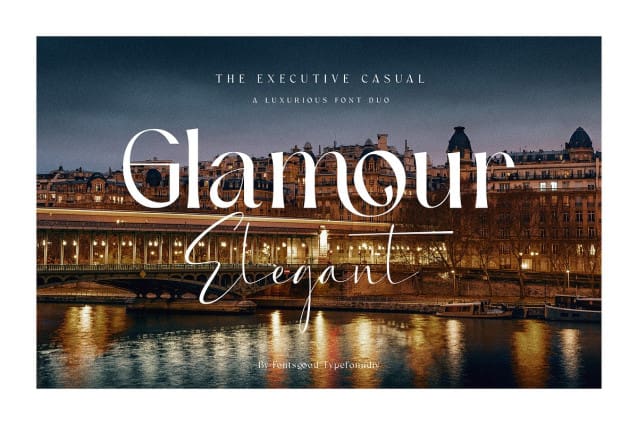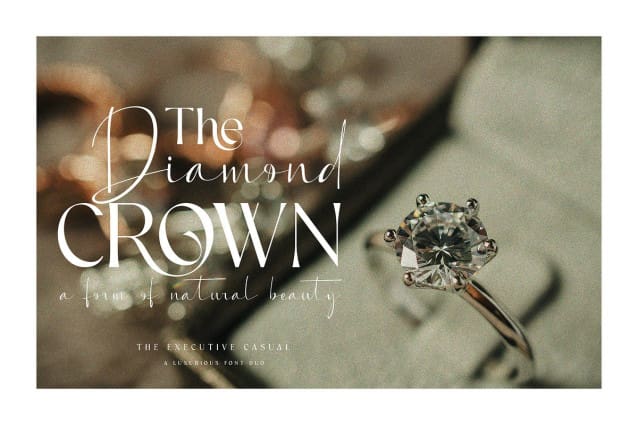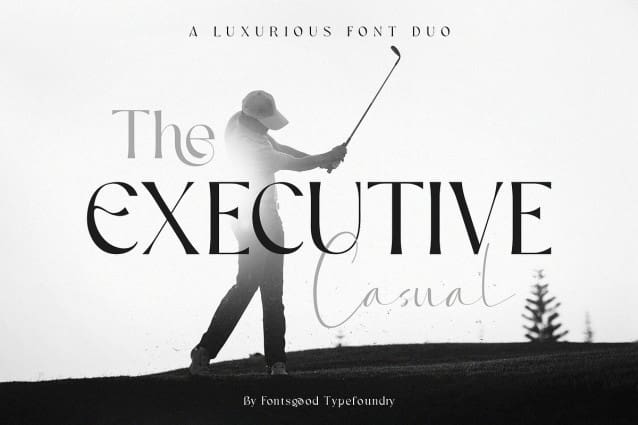
The Executive Casual Font
The Executive Casual Font A duo font with elegant combination, a perfect blend of elegance, smoothness and casualness.
The Script style has a smooth and flowing handwritten style that adds a touch of charm and sophistication to any design and the Serif style is made to bring versatile and stylish, elegance.
a perfect combination and harmonious look that works well for both formal and informal contexts. Whether you need a font for business cards, logos, magazines or websites, this font will give your text a professional and refined appearance.